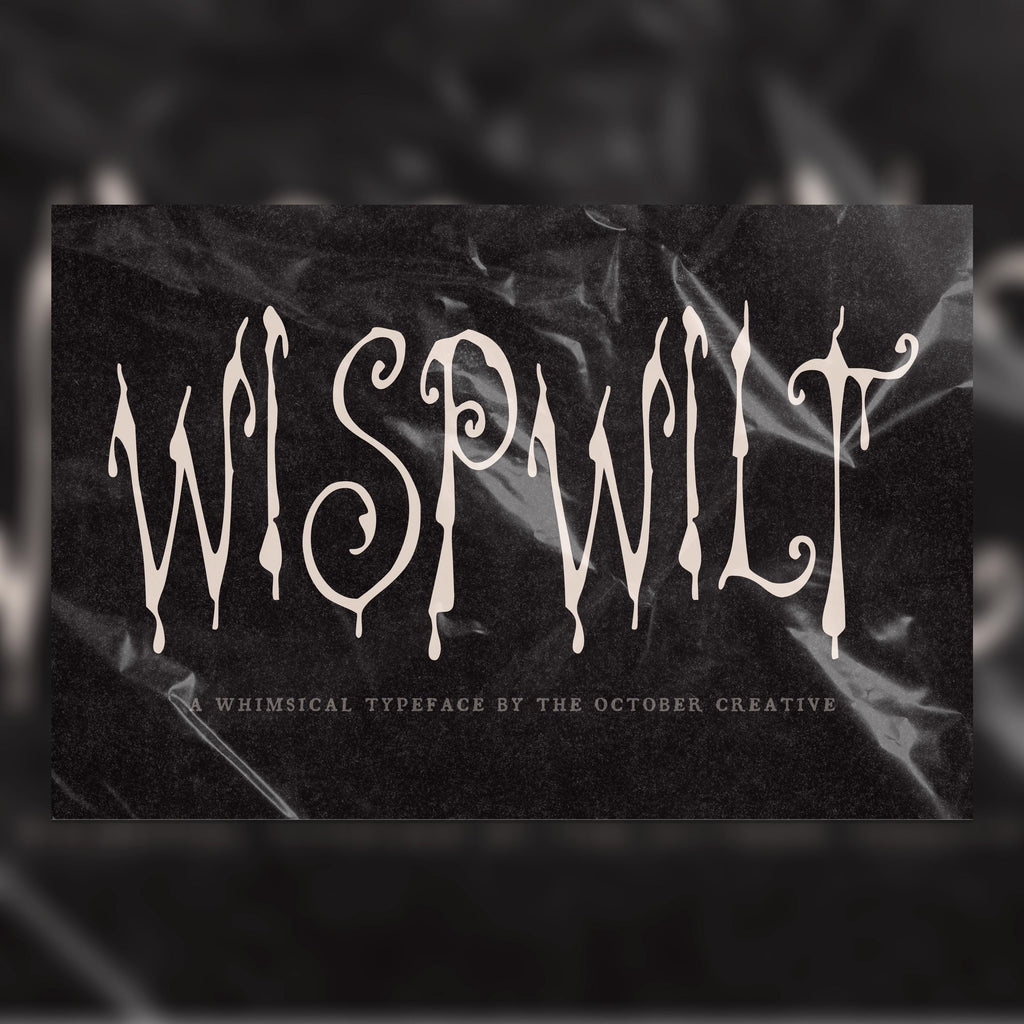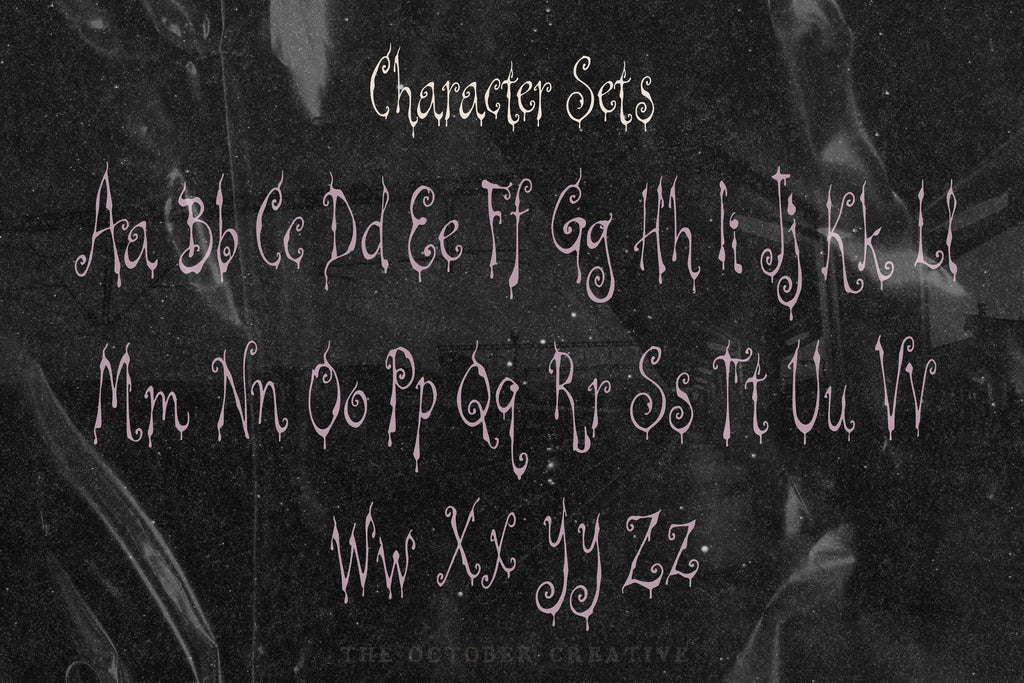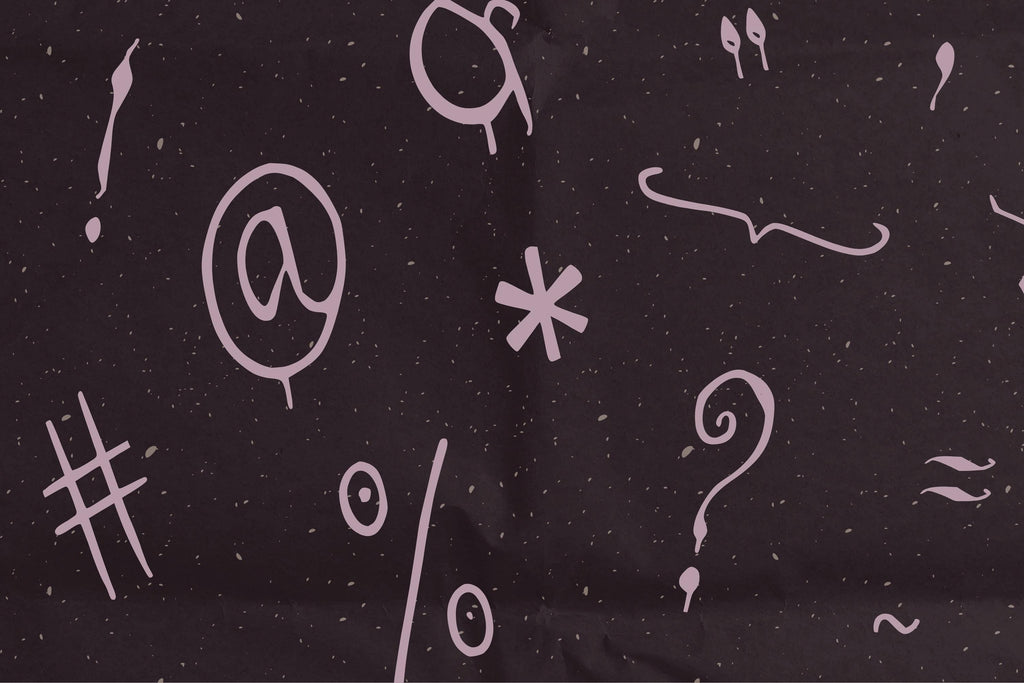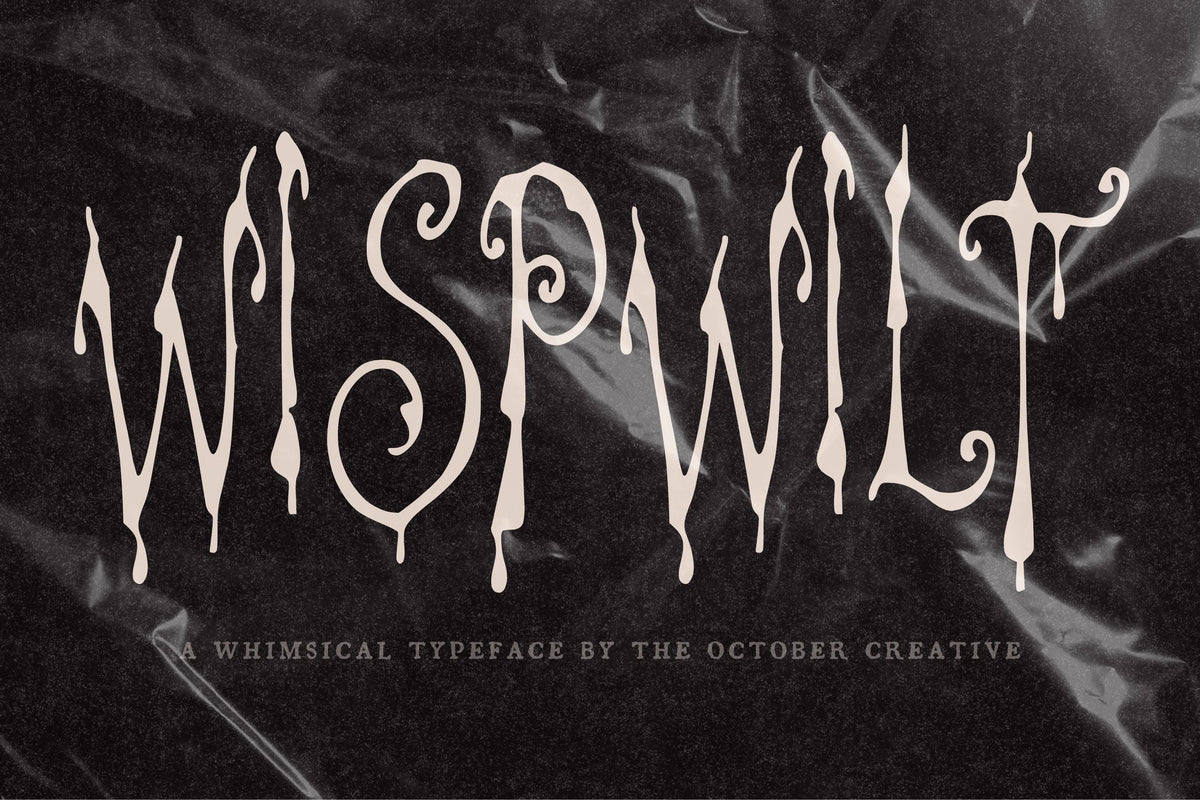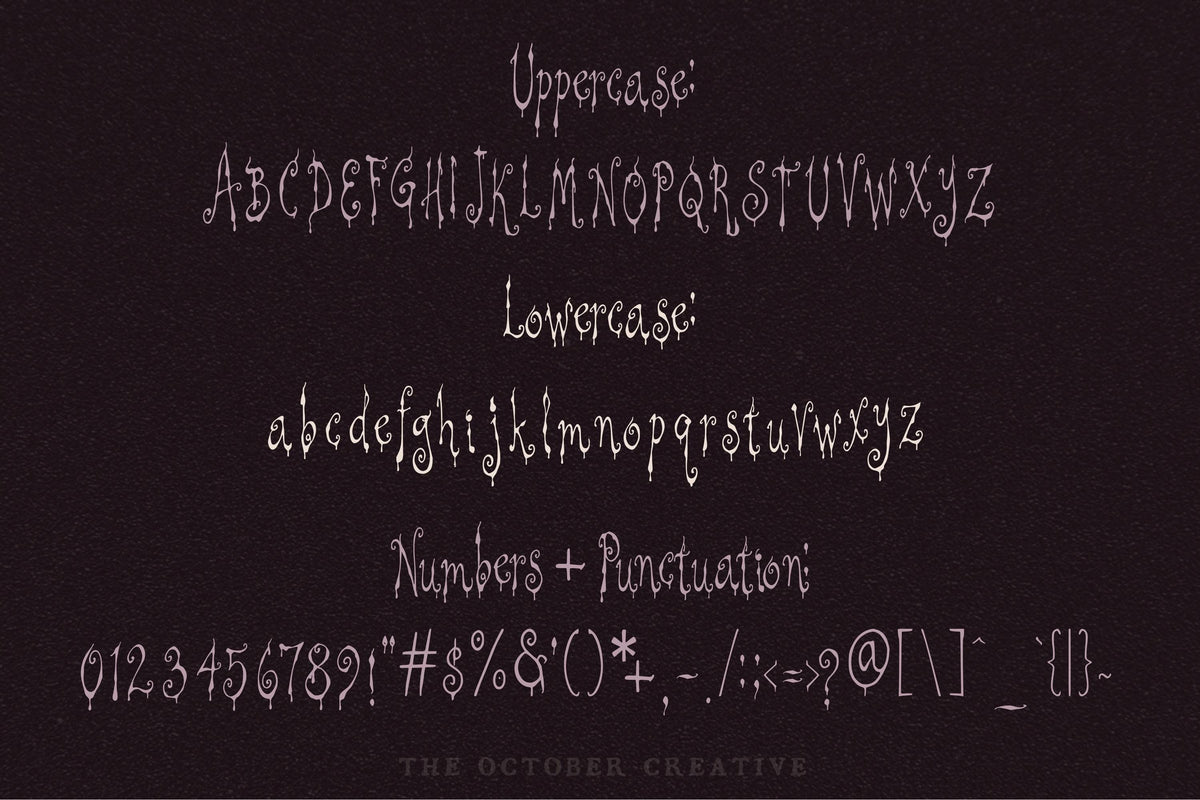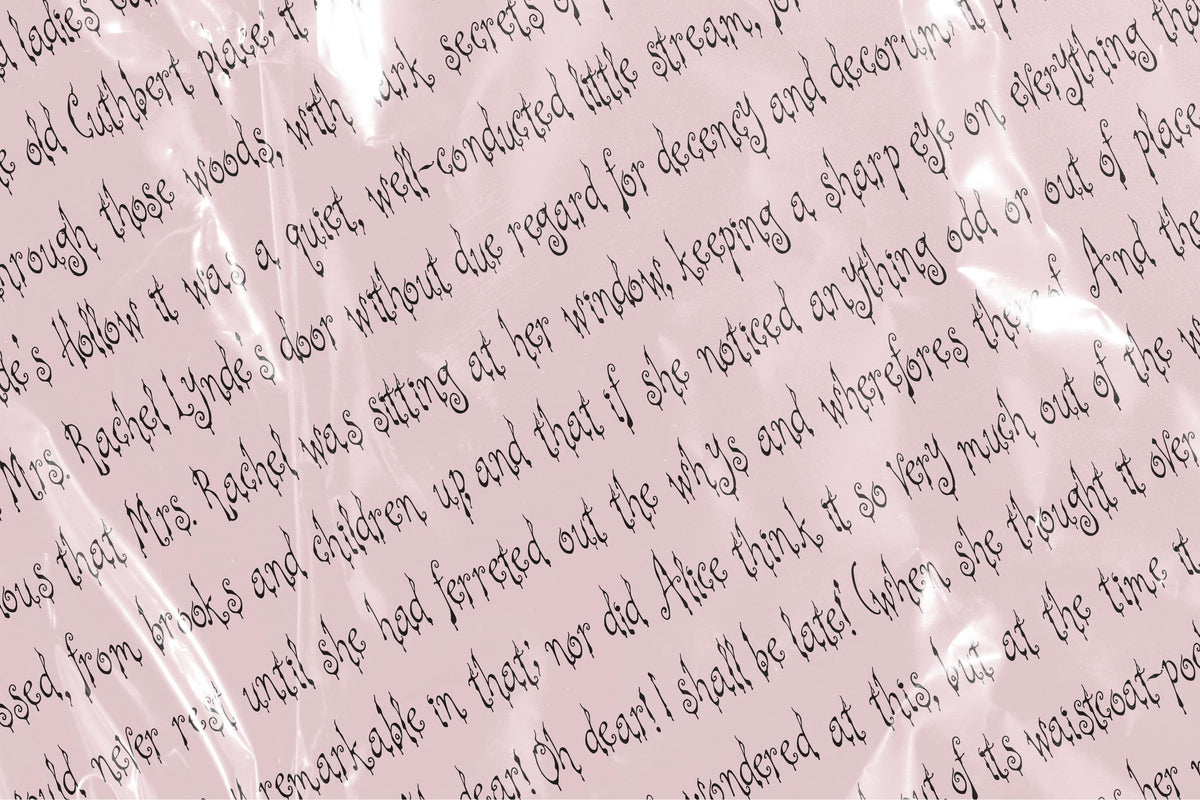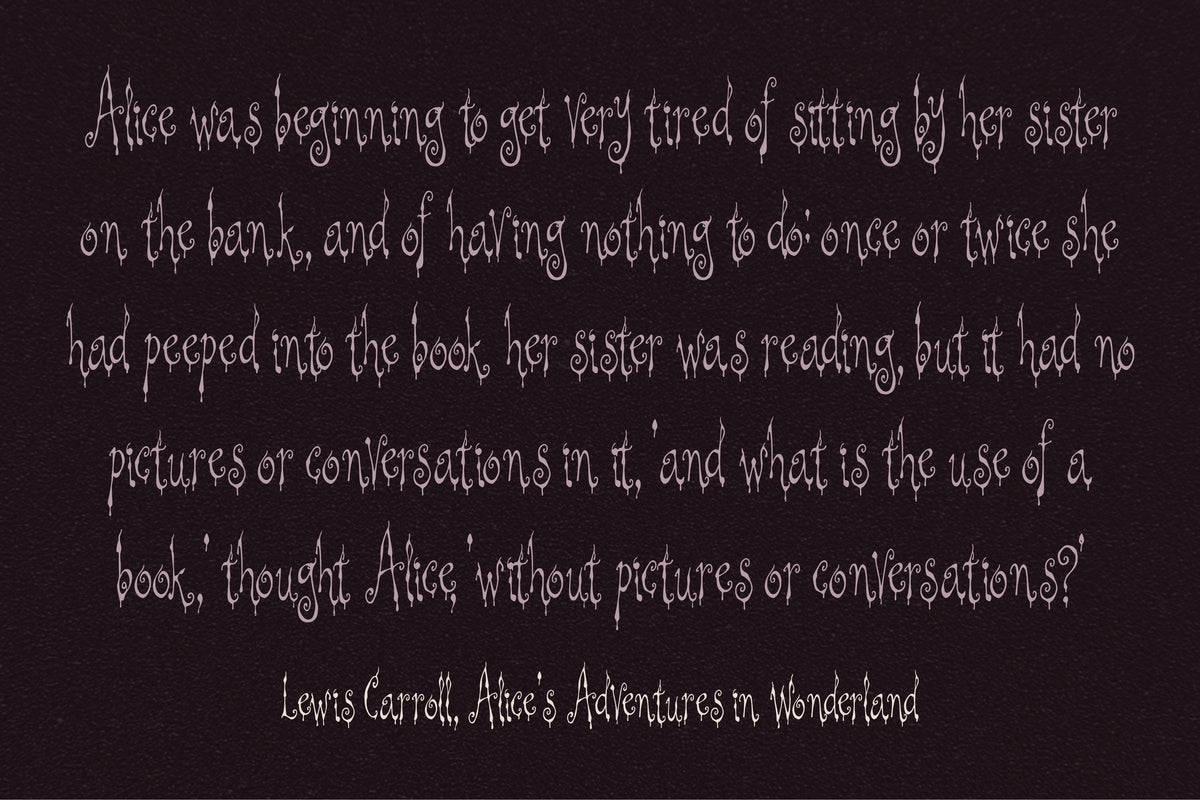
Wispwilt Font
Wispwilt has tall, delicate letters that droop at the tops, with tiny drips along the way. It's a lovely fit for botanical prints, pressed-flower journals, and garden-inspired titles with a slightly curious turn.
• One style: Wispwilt Regular
• Uppercase A to Z, lowercase a to z, numbers 0 to 9, and every standard keyboard punctuation mark and symbol
• Curly quotes and apostrophes, dashes, an ellipsis, and a bullet
• Common accented letters for names, like José, Chloé, Zoë, Renée, and Françoise
• One Regular style, with no alternate characters or ligatures.